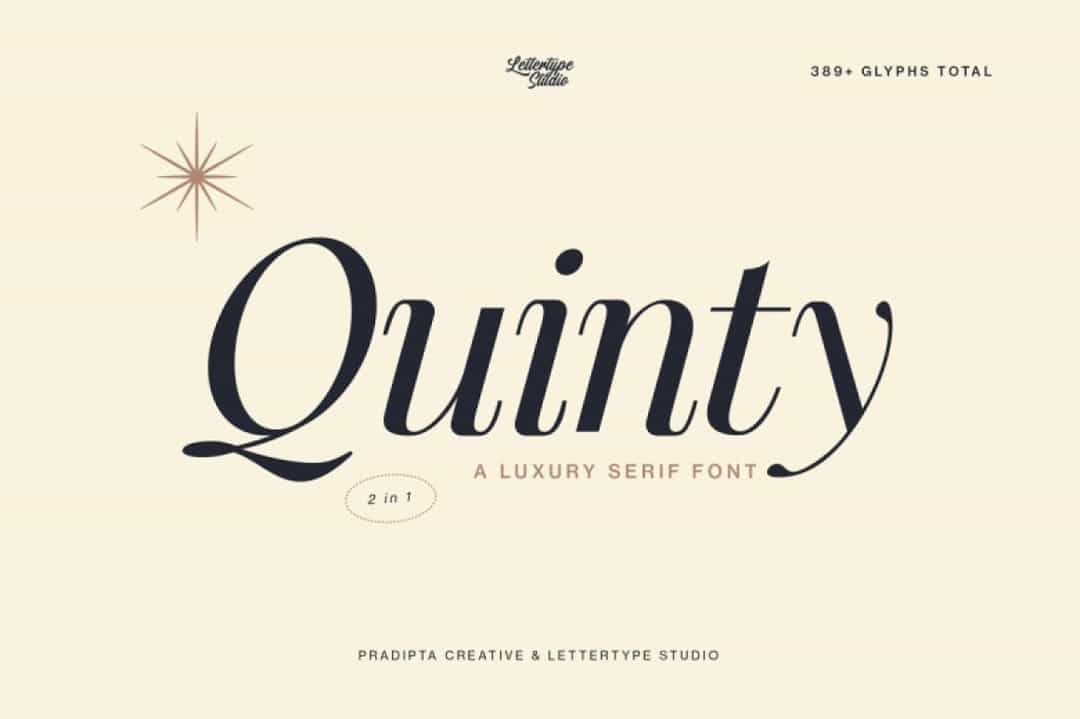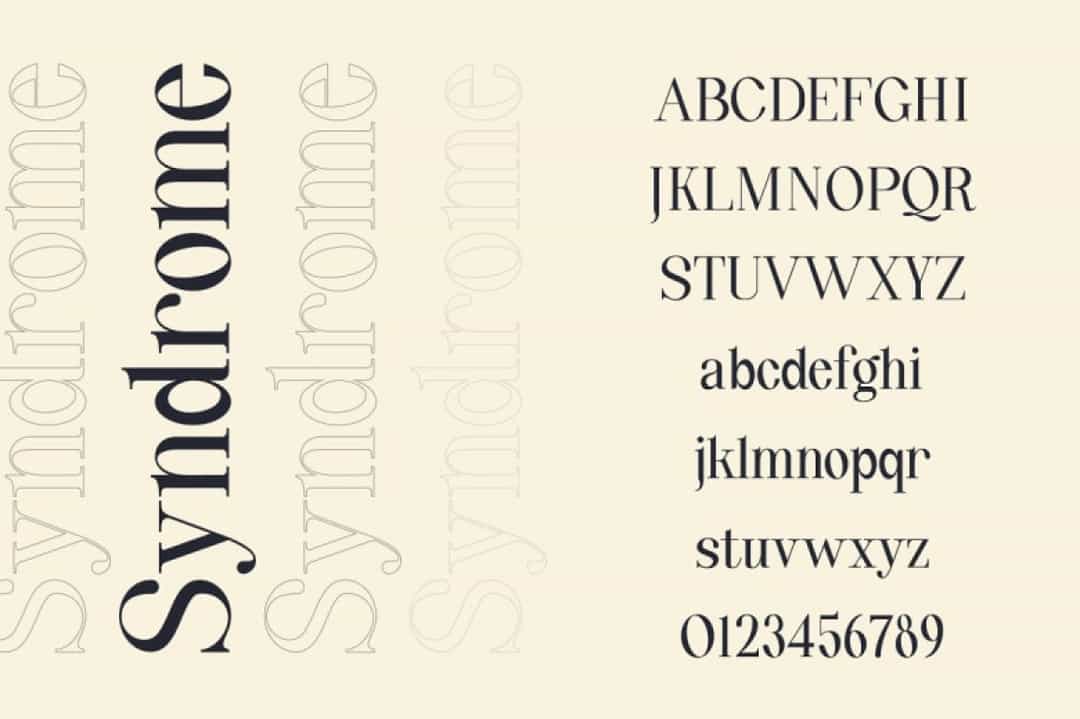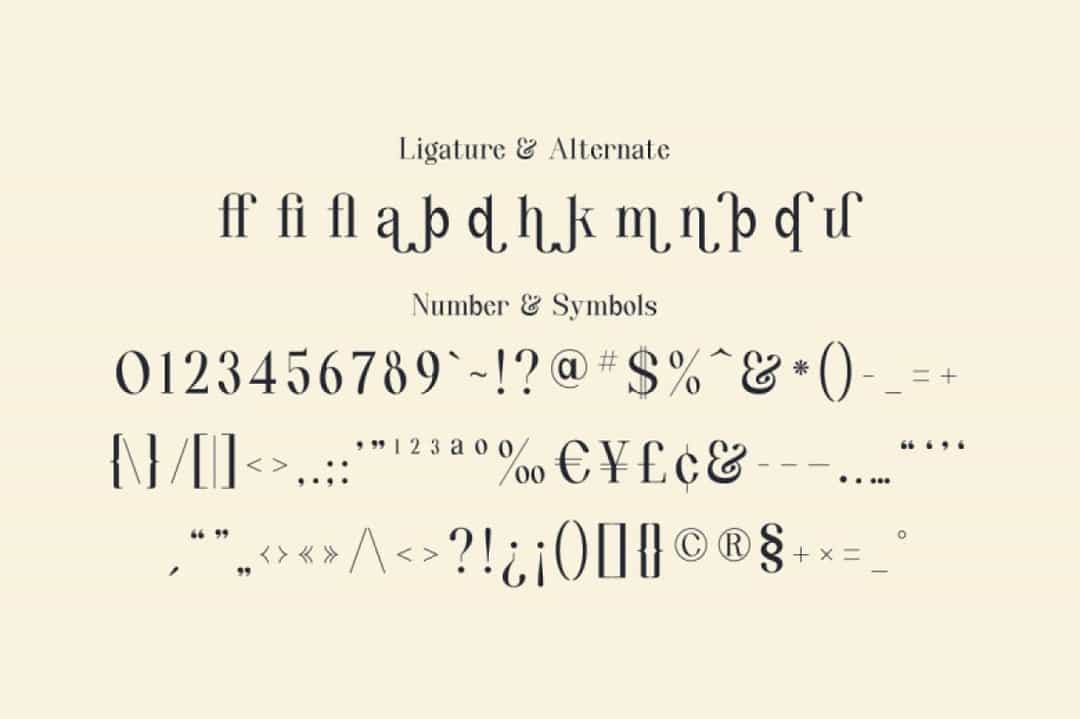
Quinty is a luxurious serif typeface with timeless appeal. Comprising 389 glyphs in total, I was inspired to design it by my home town’s collection of older homes featuring traditional or old-fashioned elements; after which, I integrated this font into my current designs to achieve a classic yet modern aesthetic.